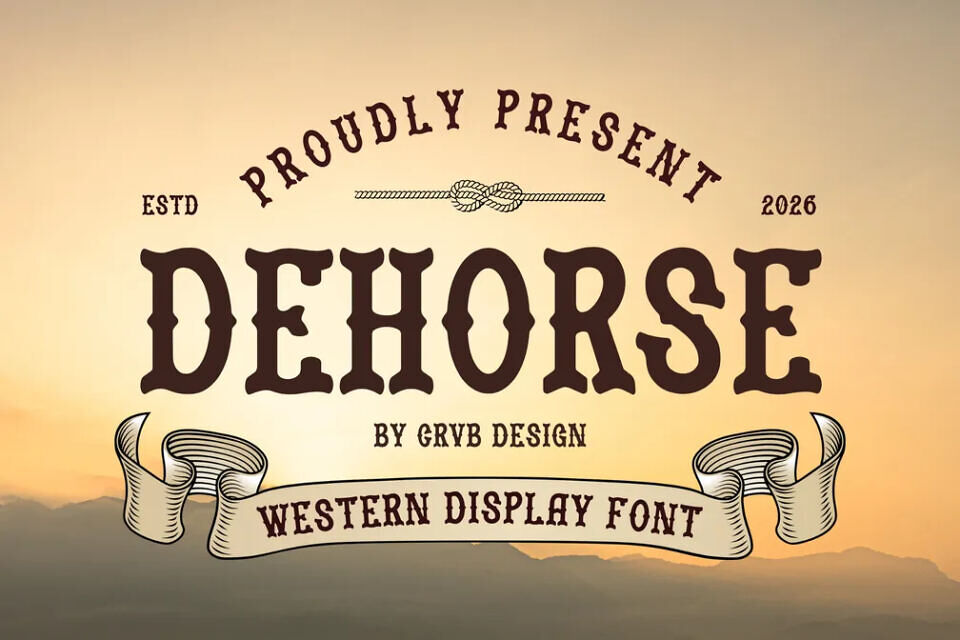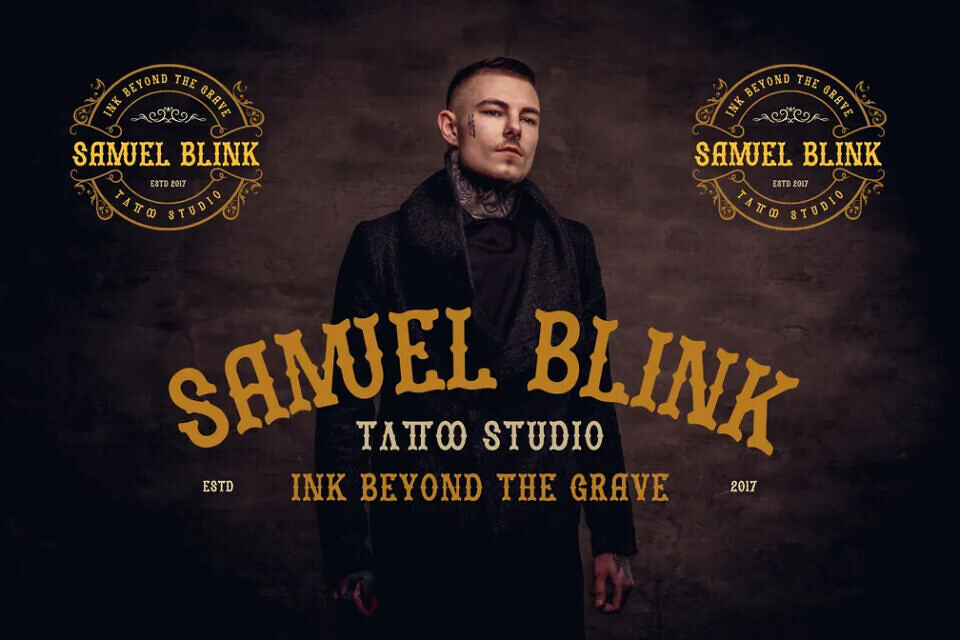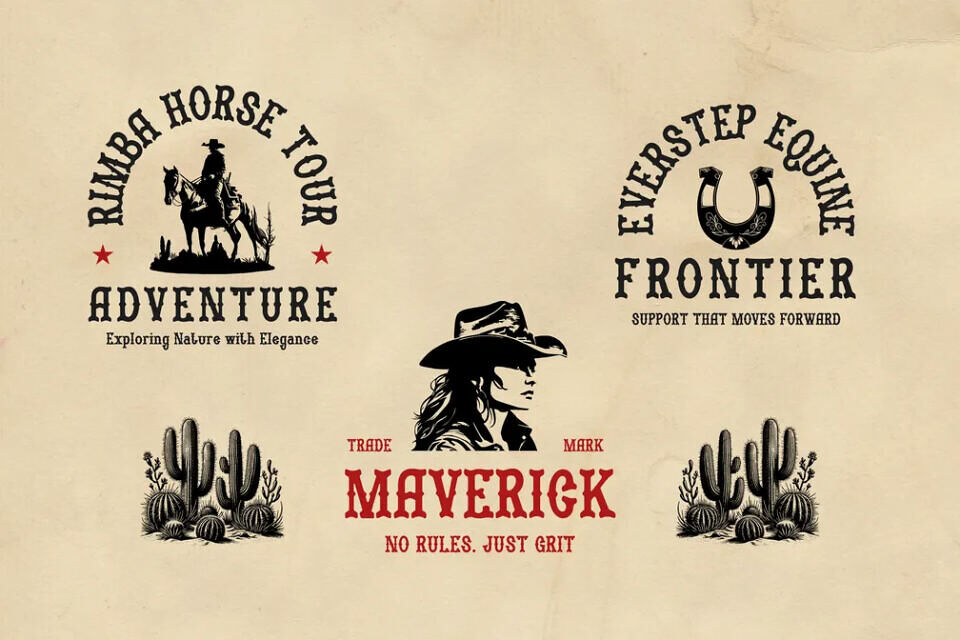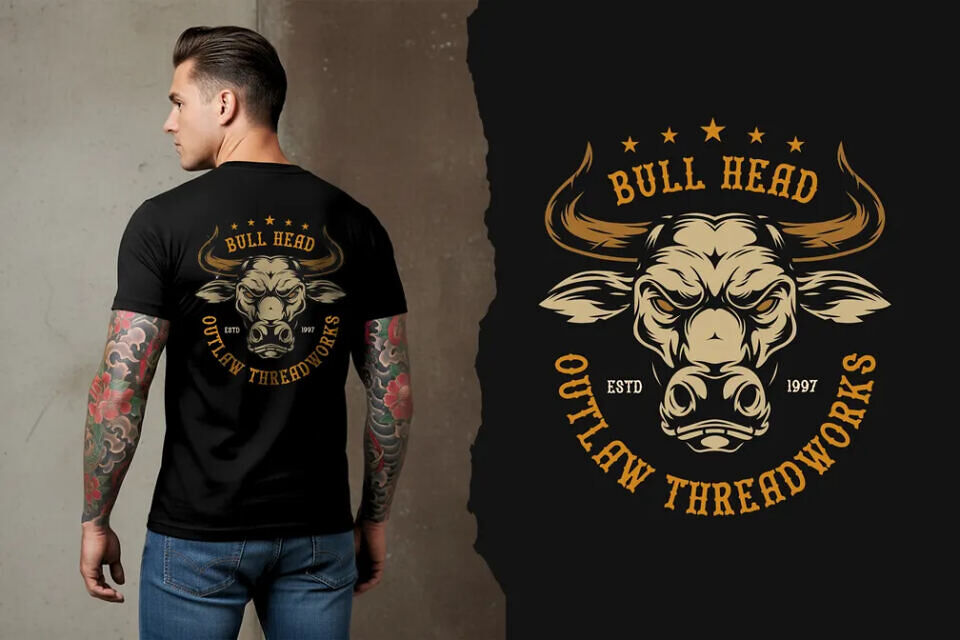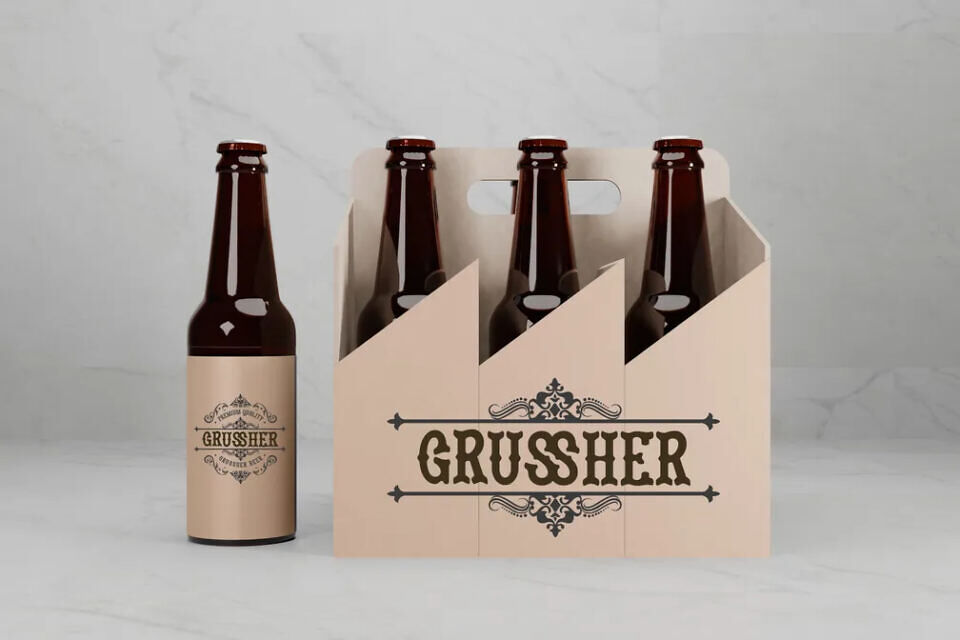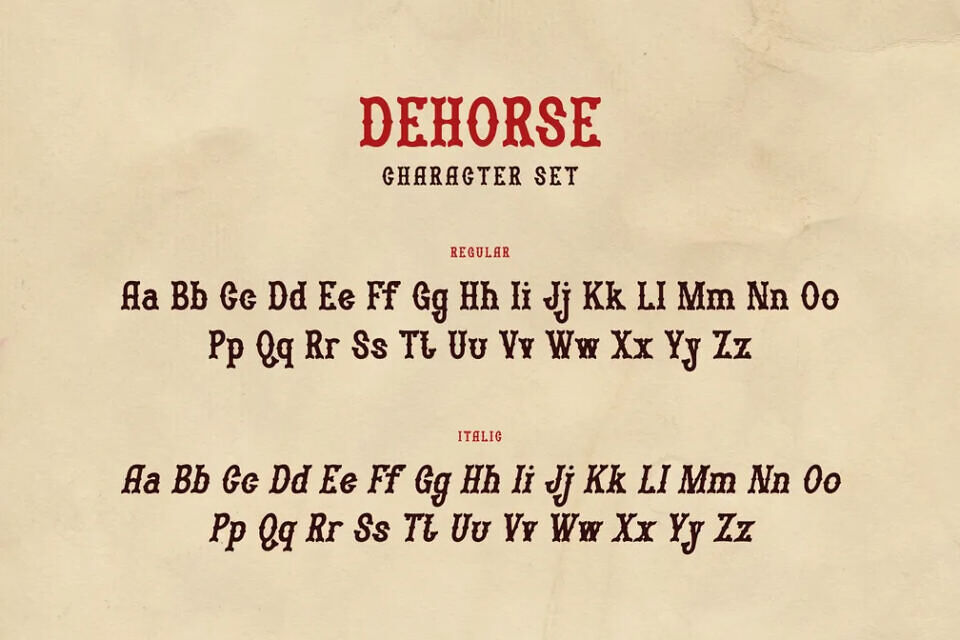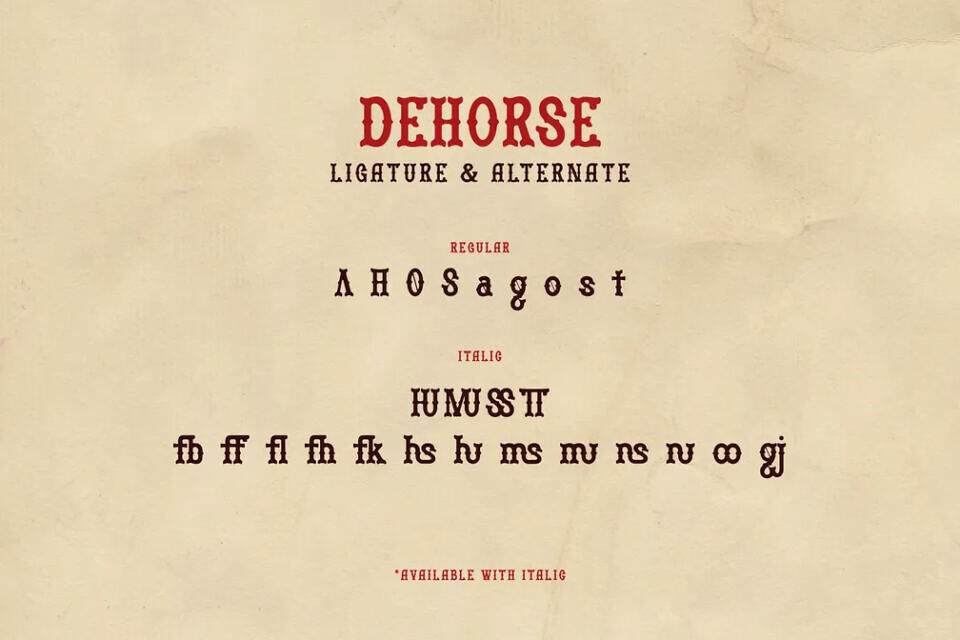
Dehorse Font
Dehorse is a bold western cowboy font inspired by classic frontier style and rugged Americana. With strong, vintage letterforms and a rustic character, this font is perfect for western-themed branding, posters, logos, apparel, signage, and country-style designs. Dehorse brings the spirit of the Wild West to your typography with a tough and timeless look.